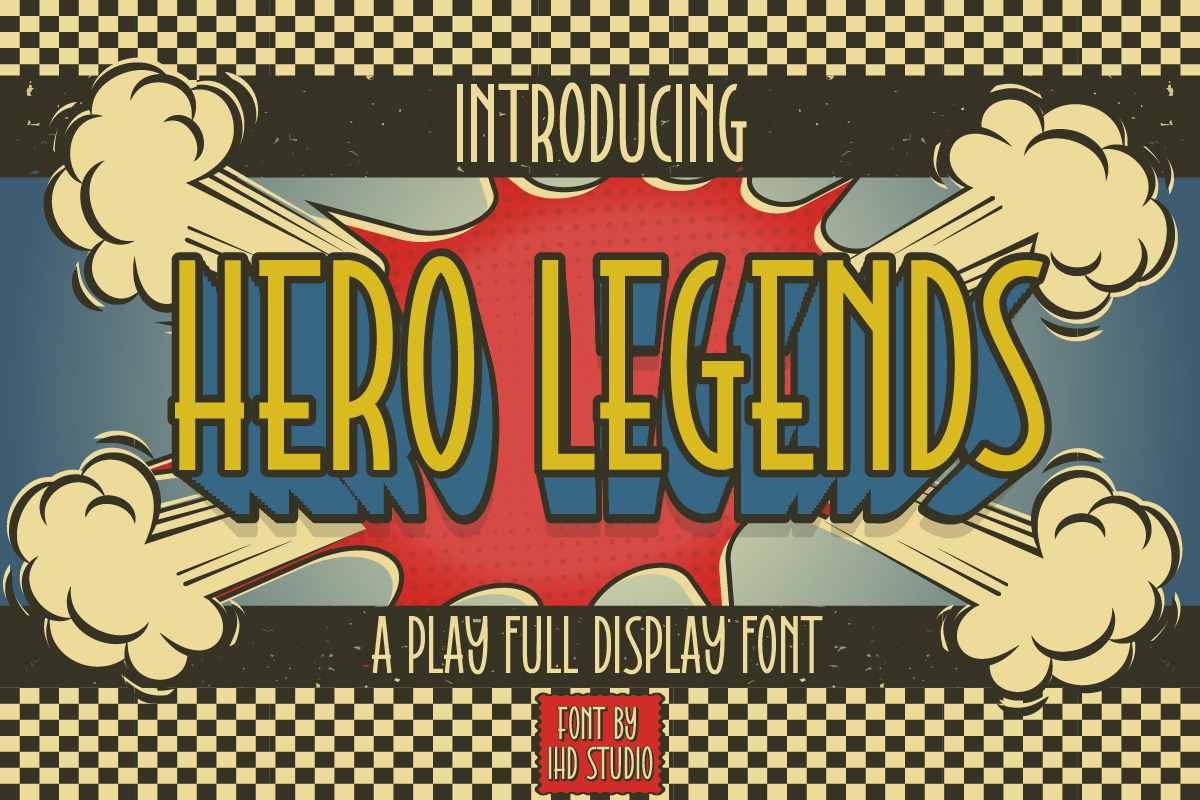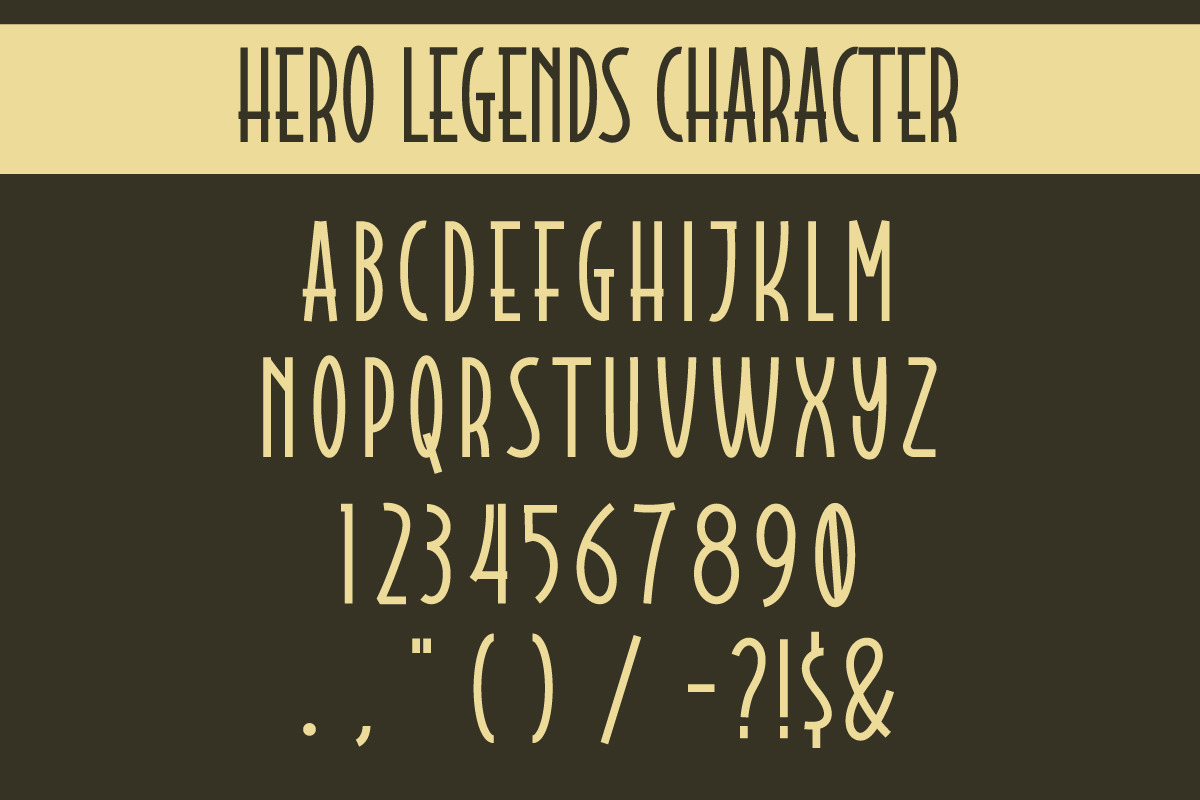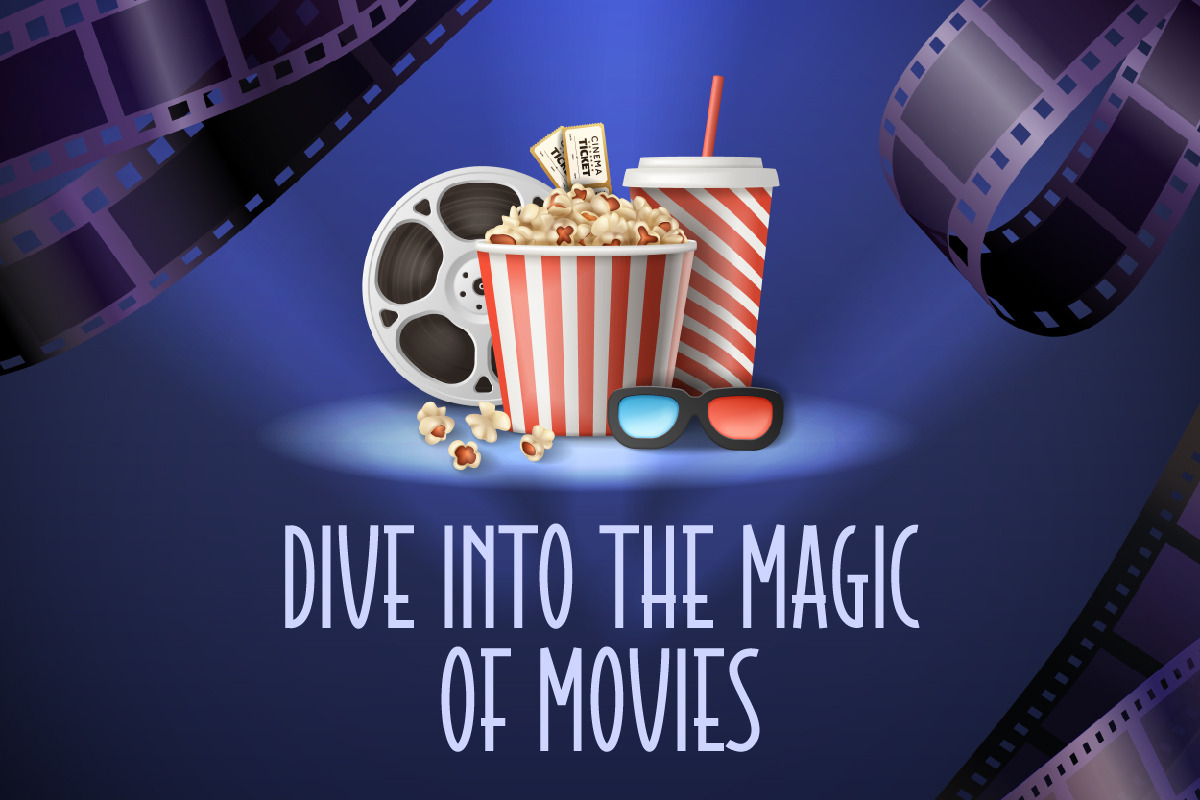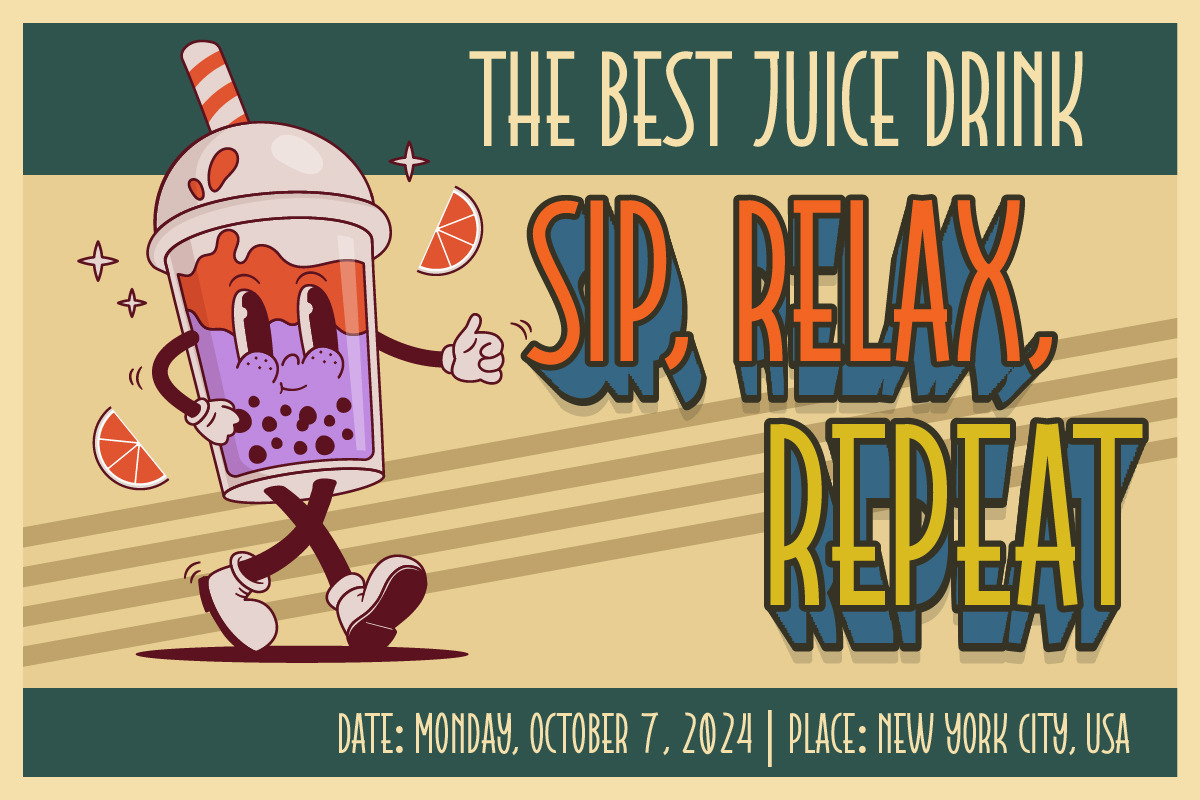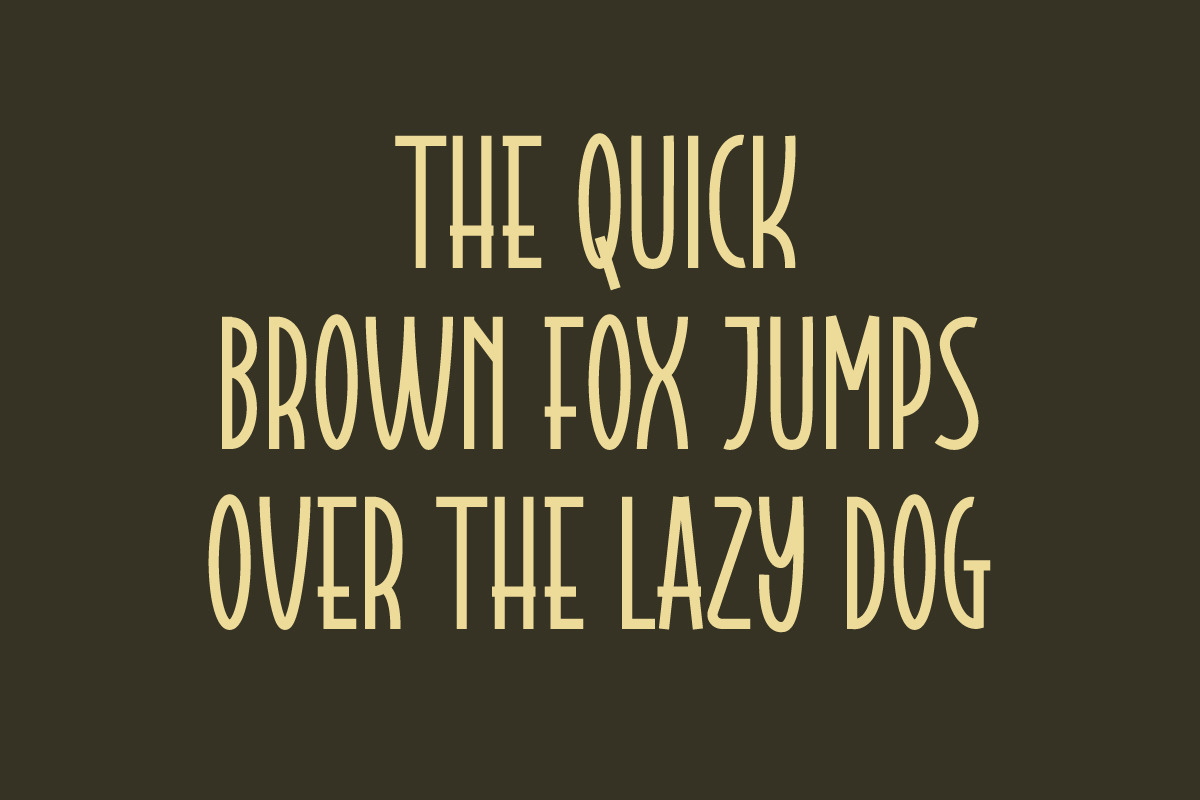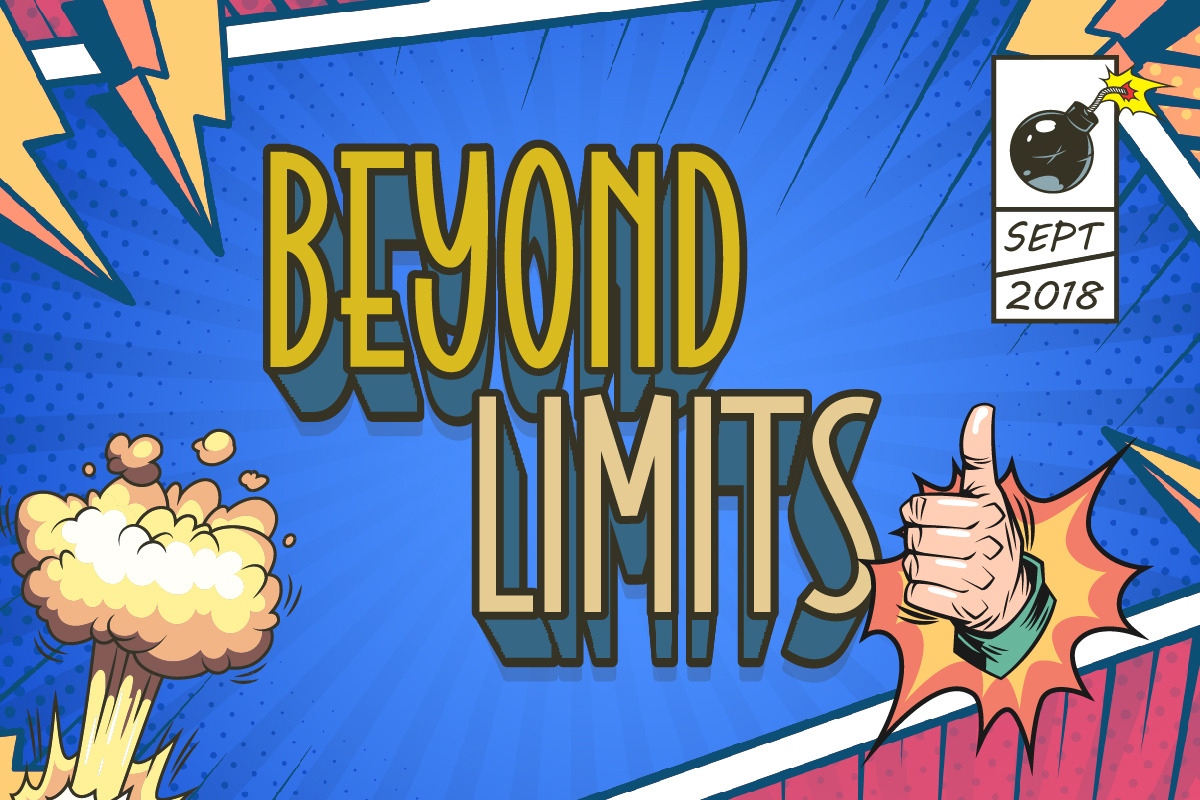
Hero Legends Retro Display Font
Hero Legends Retro Display Font is our new item suitable for your Posters.
Great for Logo, Poster, Sticker, Jerseys, Invitation Card, Brochure, etc.